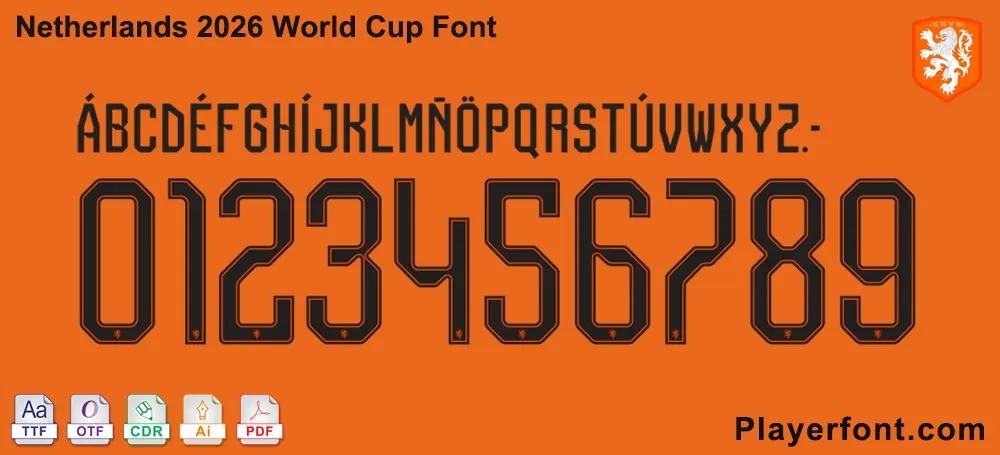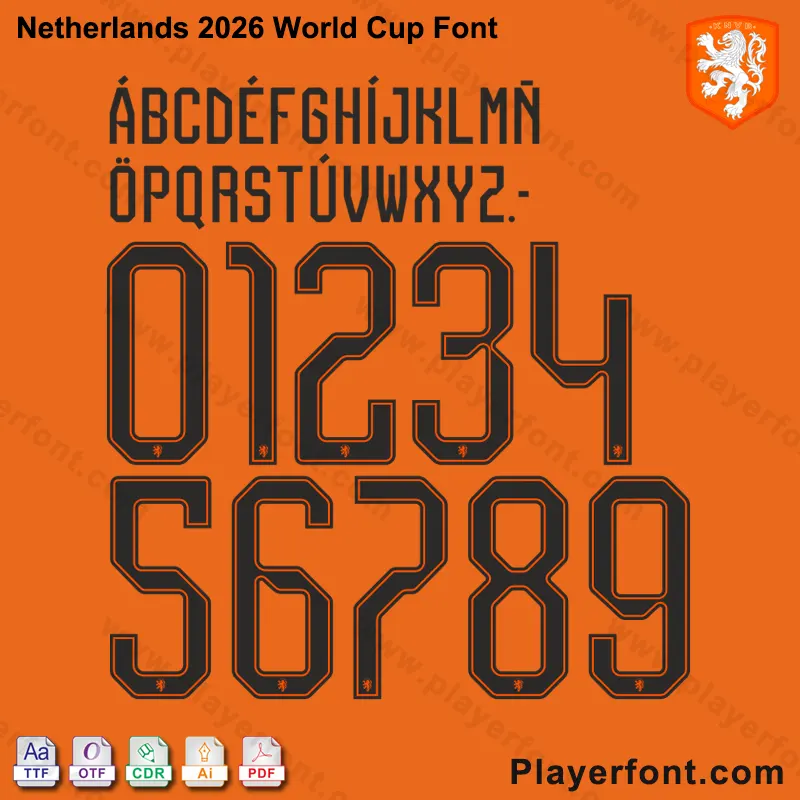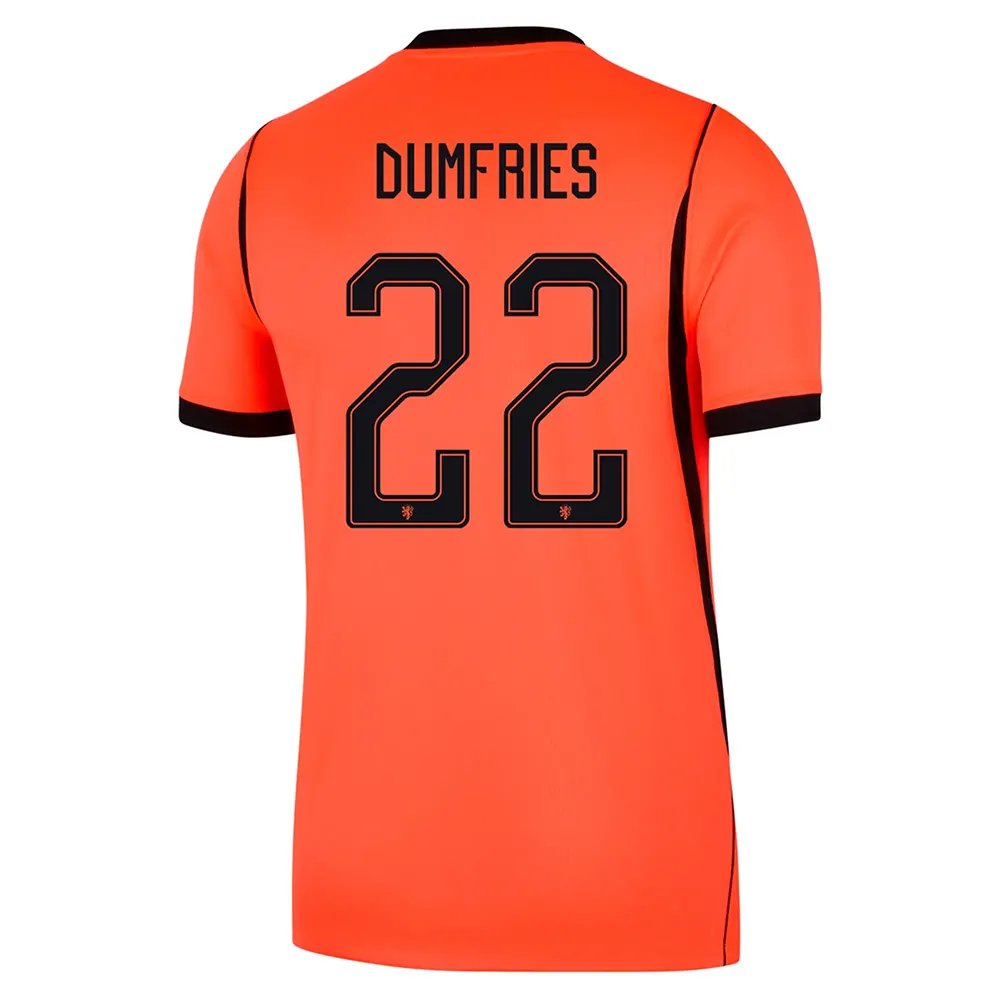
Elevate Your Designs with the Netherlands 2026 World Cup Font
Get the authentic look of the Dutch National Team with the high-quality Netherlands 2026 World Cup Kit Font. Designed for the upcoming tournament, this typography captures the modern, sharp, and aggressive aesthetic of the Oranje squad. Whether you are a jersey collector, a graphic designer, or a football enthusiast, this font kit provides everything you need to recreate professional-grade kits.
Full Character Set: Includes all uppercase letters (A-Z), numbers (0-9), and special accented characters used by Dutch players.
Authentic Details: Precision-crafted outlines and the integrated KNVB lion crest details within the numbering.
Custom Jerseys: Create your own “Dumfries 22” or “Gakpo 11” shirts.
Social Media Graphics: Design matchday posters and YouTube thumbnails.